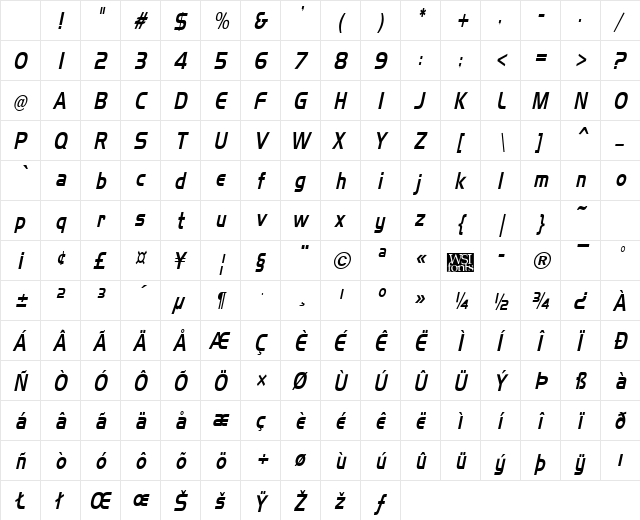
Complete Slickerest kursiv glyph index. Displaying only characters natively supported by Slickerest kursiv font.
Slickerest is a composed and adaptable typeface that performs quietly and consistently across a wide range of design contexts. The slanted form adds forward momentum and visual energy.
Pro Tip: Use Slickerest for emphasis, pull quotes, and subheadings where its slanted energy can add rhythm to the layout.